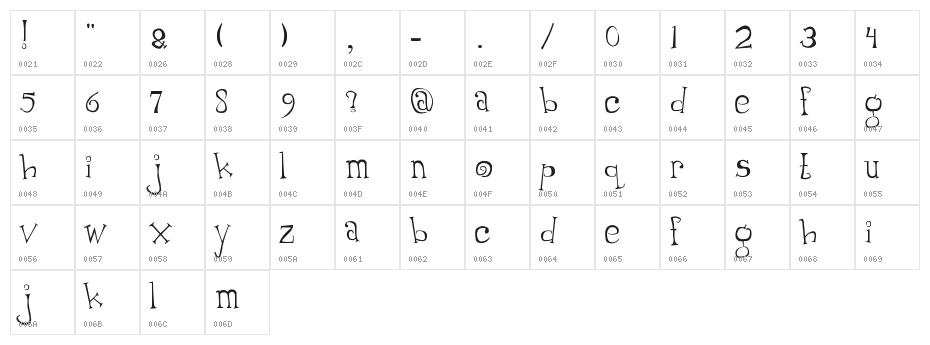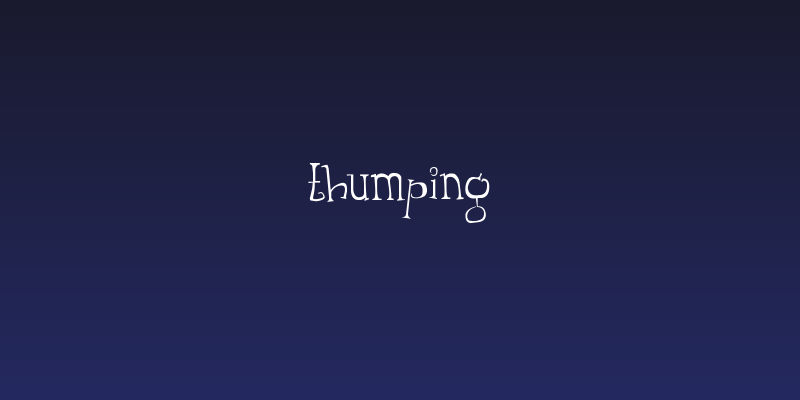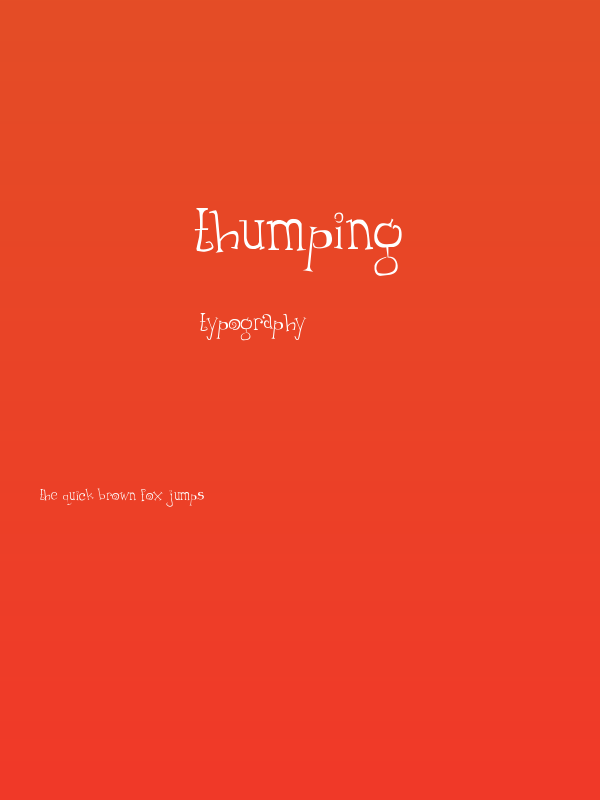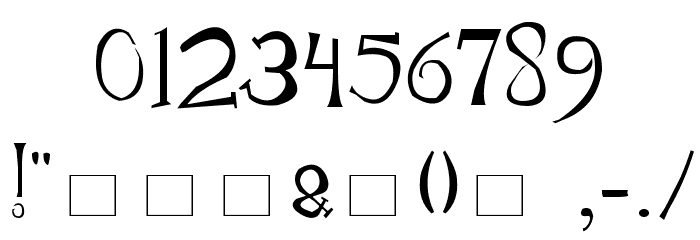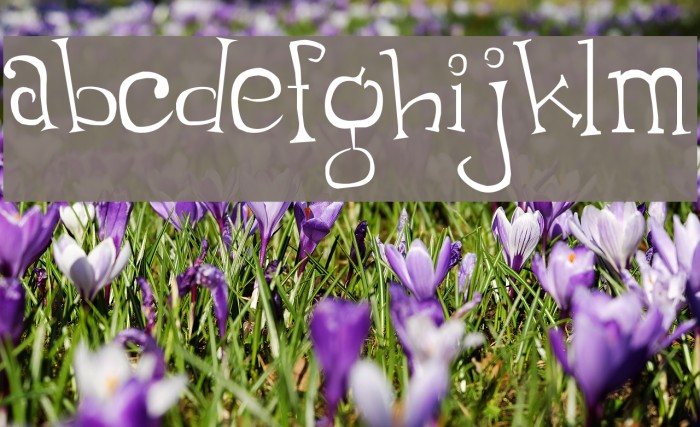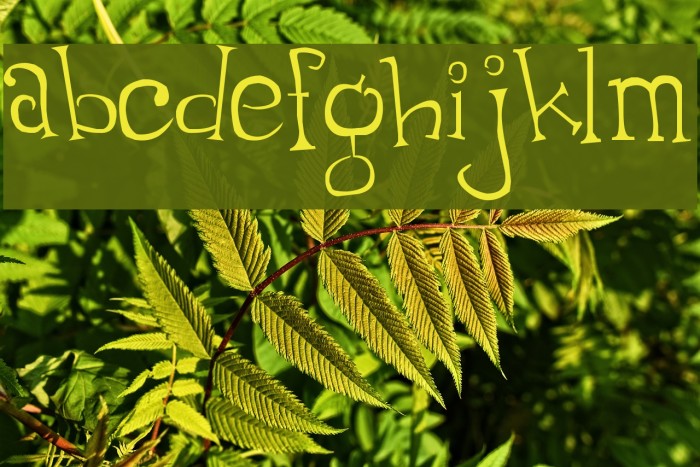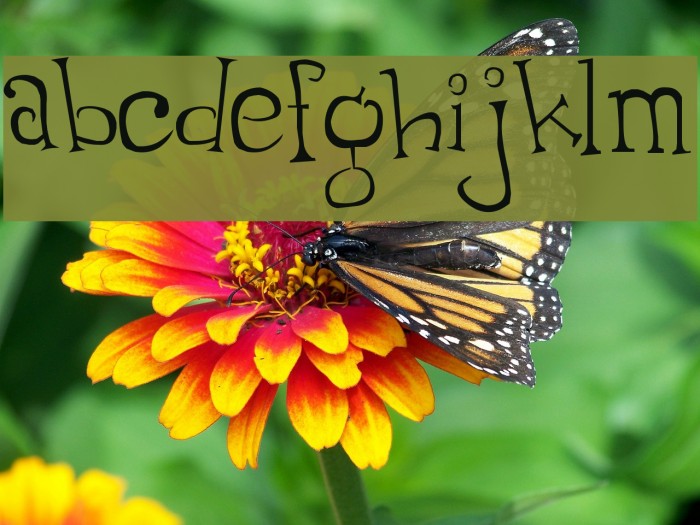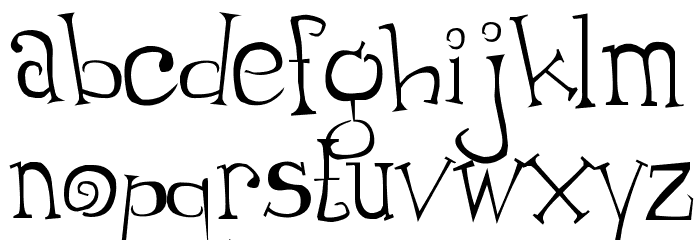
Thumping Font
Thumping Description
This font exhibits a playful and whimsical style, characterized by its unique and irregular letterforms. The characters have a hand-drawn appearance with varying stroke thicknesses, giving them a lively and dynamic feel. The uppercase and lowercase letters maintain a consistent style, with some letters featuring exaggerated curves and loops. The numerals are equally distinctive, with a quirky design that complements the overall aesthetic. Special characters are included, maintaining the same playful style. This font is ideal for projects that require a fun and informal touch.
| Overall Style | Whimsical |